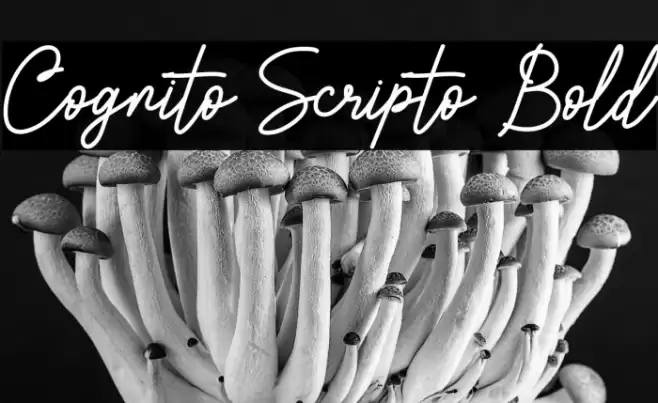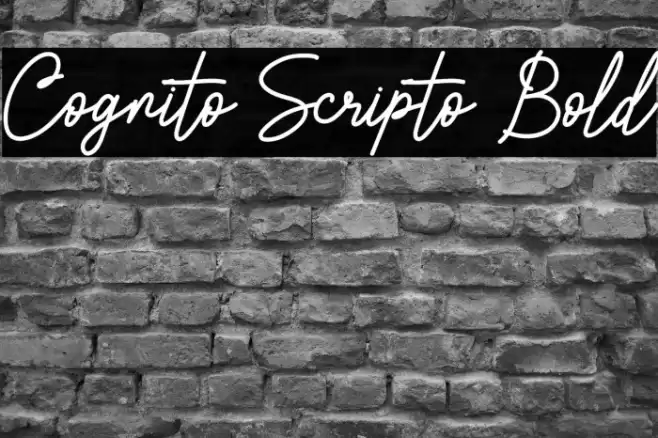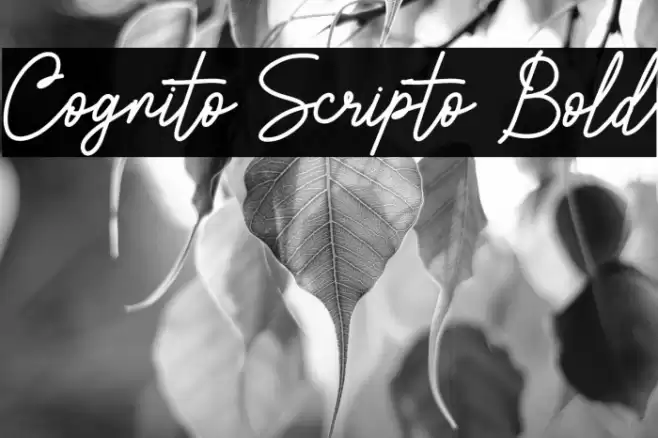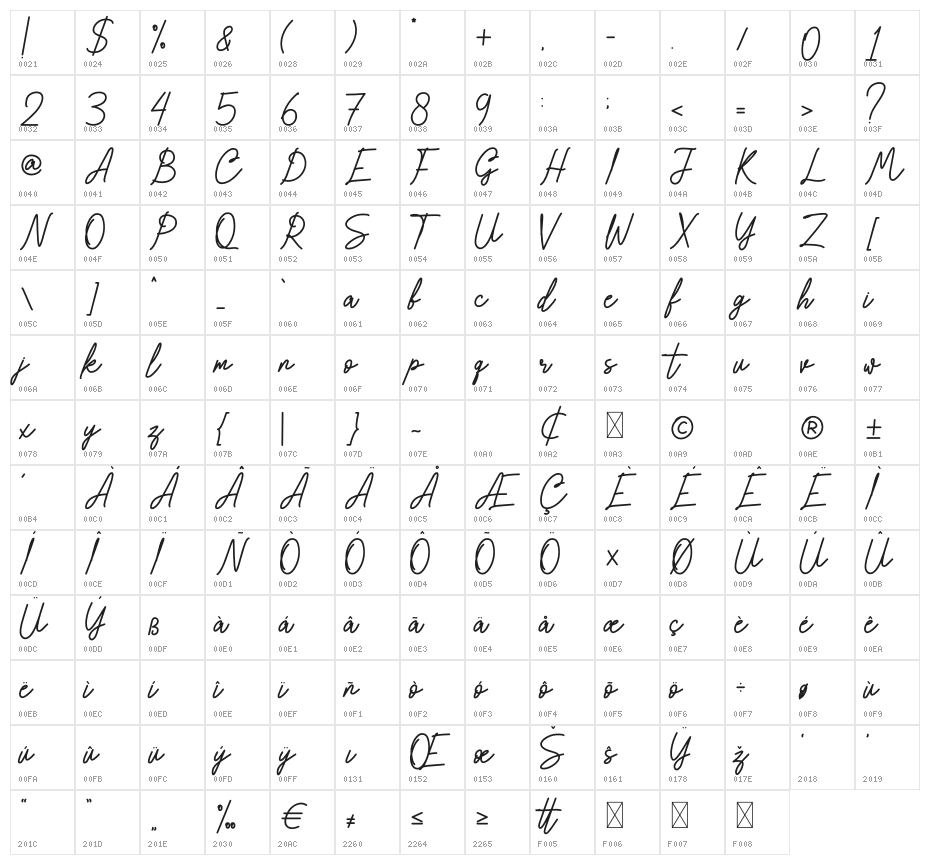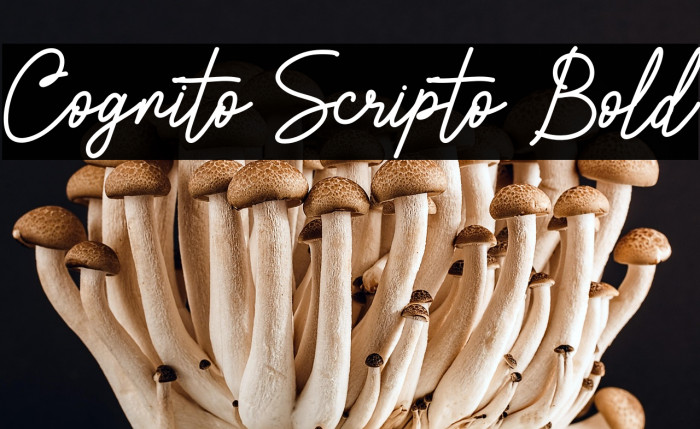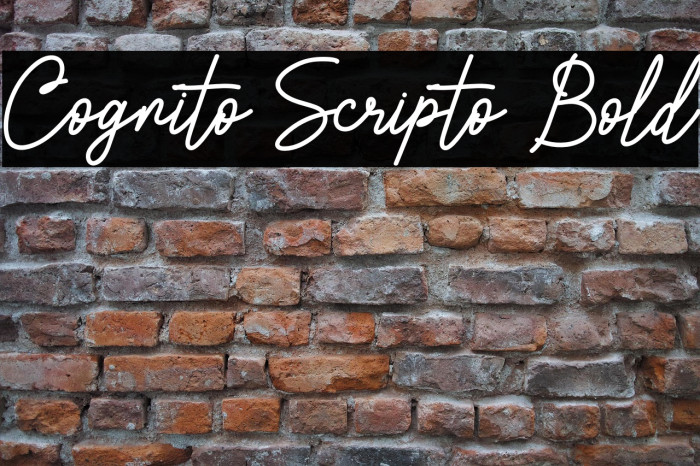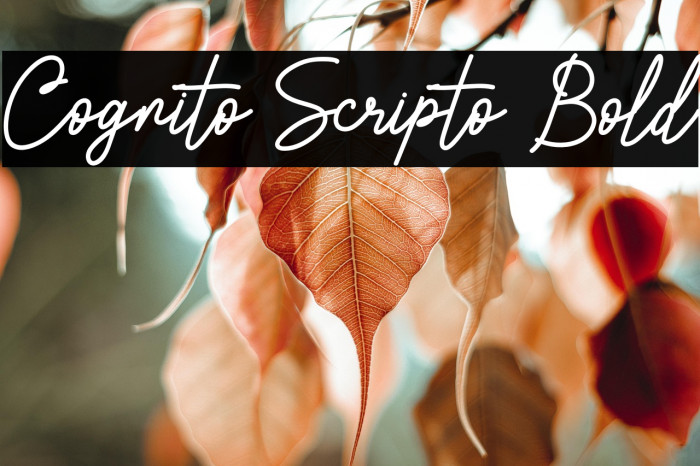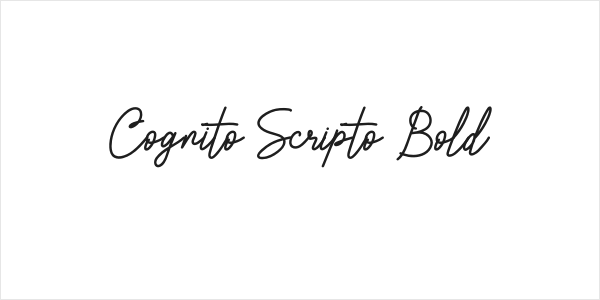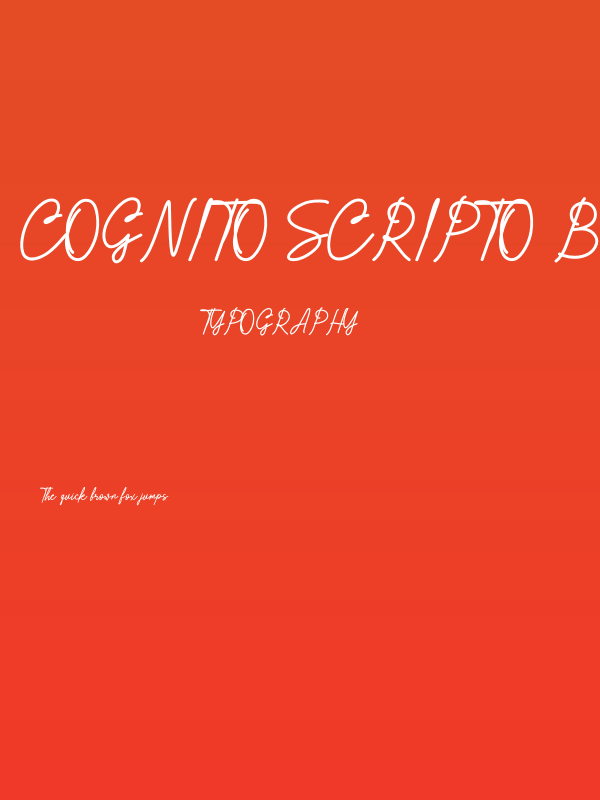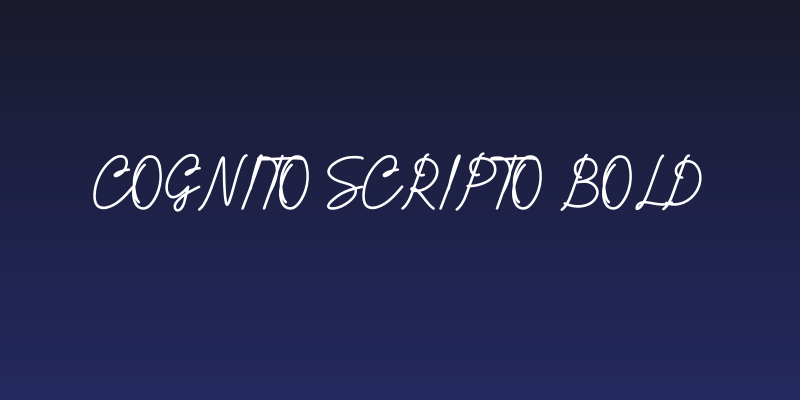
Cognito Scripto Bold Font
Cognito Scripto Bold Description
This font features a bold, expressive script style with a handwritten appearance. The uppercase letters are tall and slightly slanted, giving a dynamic and energetic feel. The lowercase letters maintain a consistent flow, with smooth curves and elegant loops. Numbers are clear and legible, matching the overall style with a slight slant. Special characters are creatively integrated, maintaining the font's cohesive look. The boldness of the strokes adds emphasis, making it suitable for impactful designs.
A bold, expressive script font with a dynamic handwritten style from Regular fonts.
- Proposed Projects: Ideal for branding, invitations, greeting cards, and creative headlines.
- Use Case: Logos, Headlines, Invitations